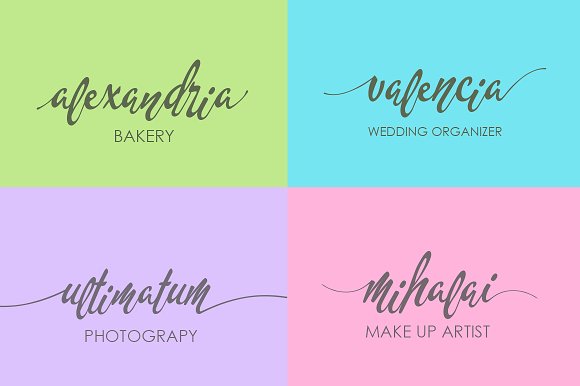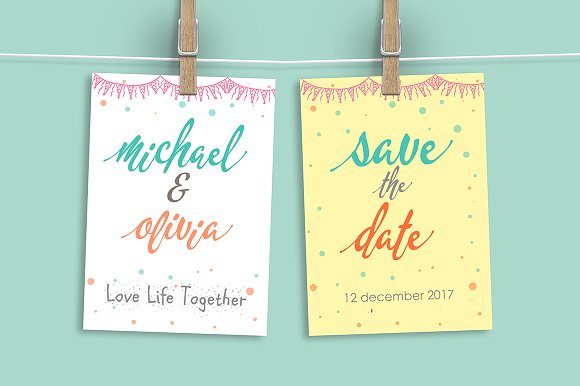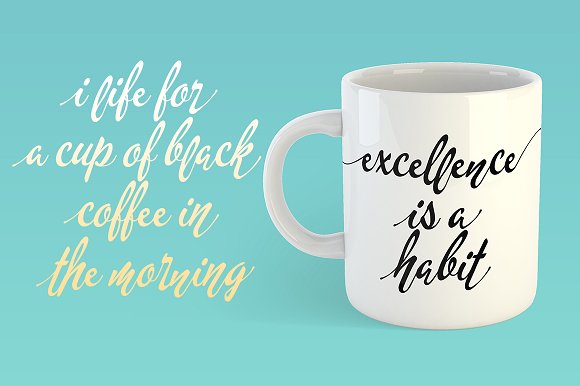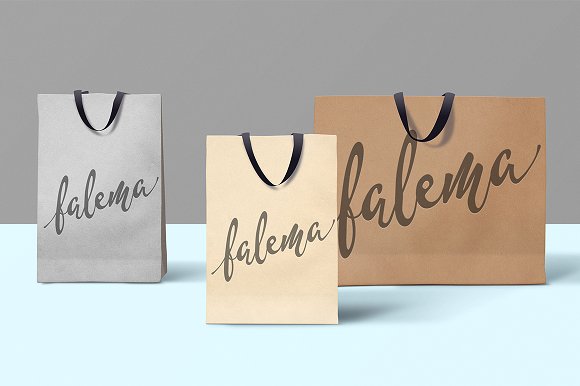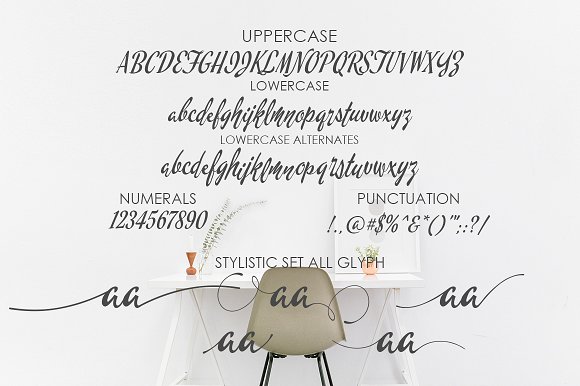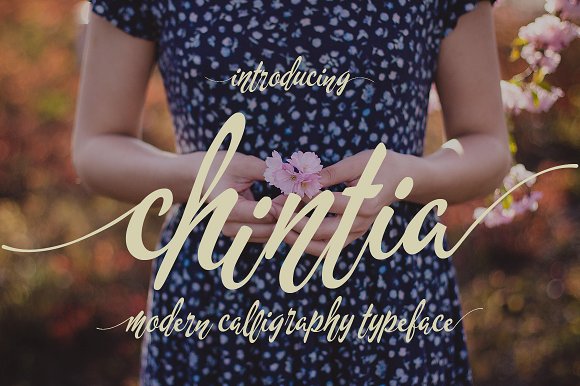
Chintia
Chintia Script Font
Chintia is a hand calligraphy, simple, smooth, modern, calligraphy wavy, which was created to meet the needs of your next design project. Chintia can used for various purposes. such as the title, logo, correspondence, wedding invitations, letterhead, signage, labels, newsletters, posters, badges, etc